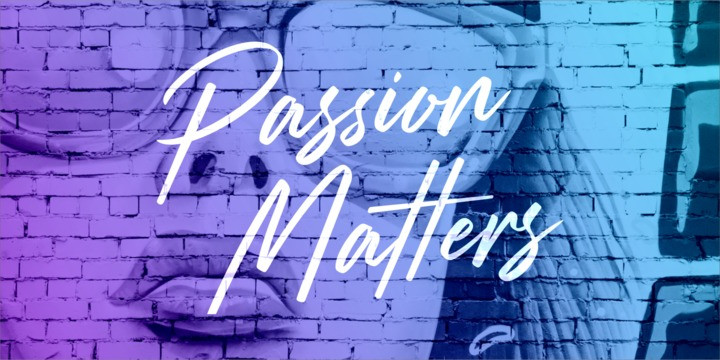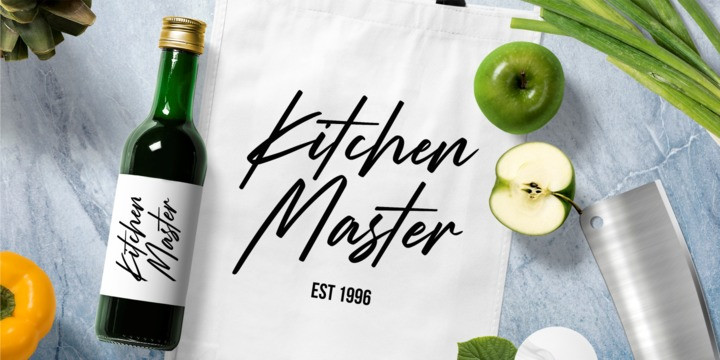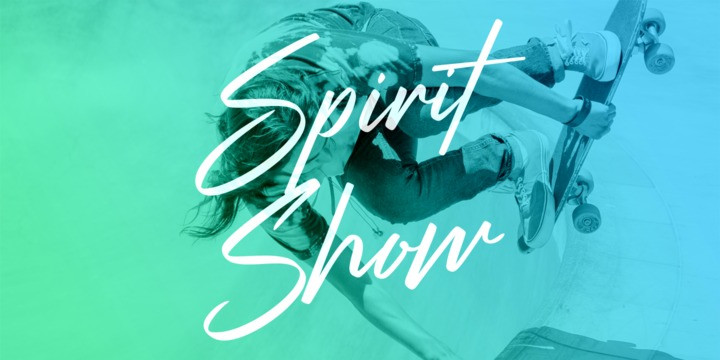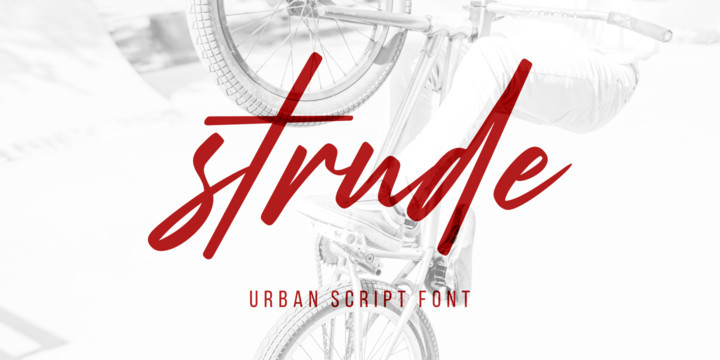
Hello everyone. This is calligraphy script fonts that come with luxurious characters are very charming, in the form of results but look modern, made with inspiration to get a beautiful style and match between one and the other letters. Introducing Strude Font. Strude designed and shared by Letteralle. Strude Script Font is a modern urban style font script. Strude comes with stylistic set (uppercase & lowercase), ligatures, and also supports multi language. With letters that have a distinctive style, Strude is perfect for logo design, merch, display, apparel, and many more.